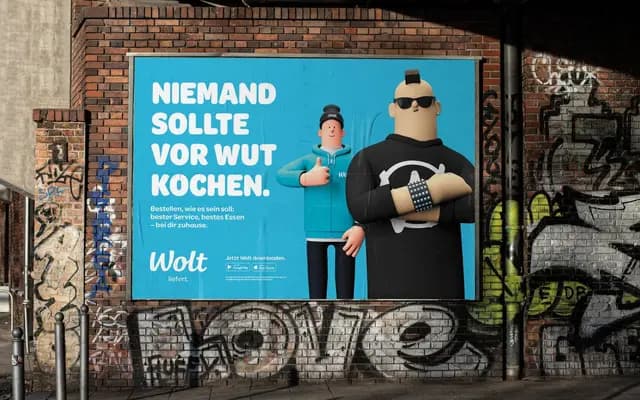
Omnes
Darden Studio · Josh Darden · 2006
Omnes specimen from Darden Studio
A rounded continental grotesque by Josh Darden spanning 72 styles across four widths and nine weights, built out for editorial and information design work.
Released in 2006 and revised with expanded features, it covers four width grades from Narrow to Standard, each running from Hairline to Black with matching italics. The feature set is notably practical: tabular figures, auto fractions via OpenType, index characters in eight variations and an extended arrow set make it well suited to charts and data-heavy layouts. Rounded terminals give it warmth without softening its utility in continuous text or branding contexts.
Darden Studio classifies it as a Rounded Continental Grotesque; it carries soft terminals and curvaceous letterforms typical of rounded grotesques with a European character.